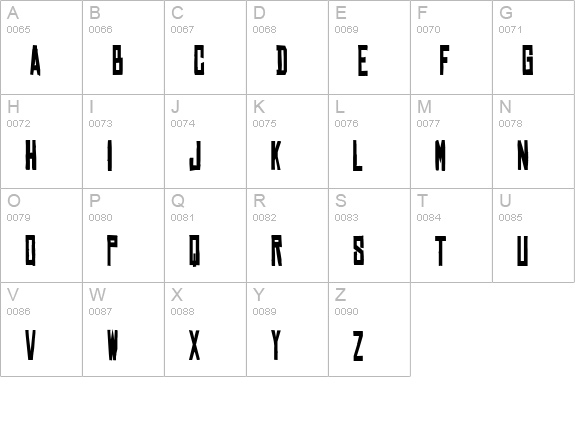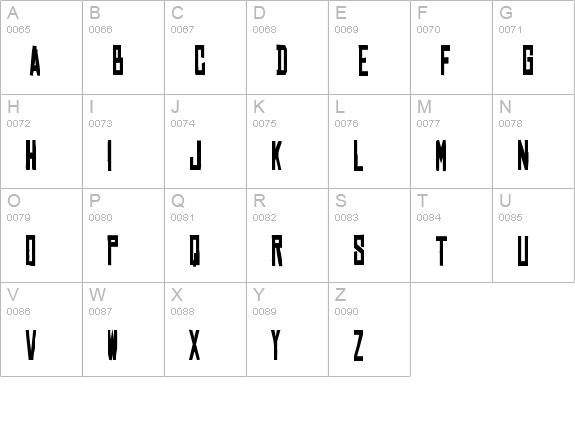
Chinese Rocks Cnd Bold Font Details
Chinese Rocks Cnd Bold is a strong, high-contrast variant in the Chinese typeface family \xE2\x80\x94 well suited to headlines, attention-grabbing titles, and strong calls-to-action.